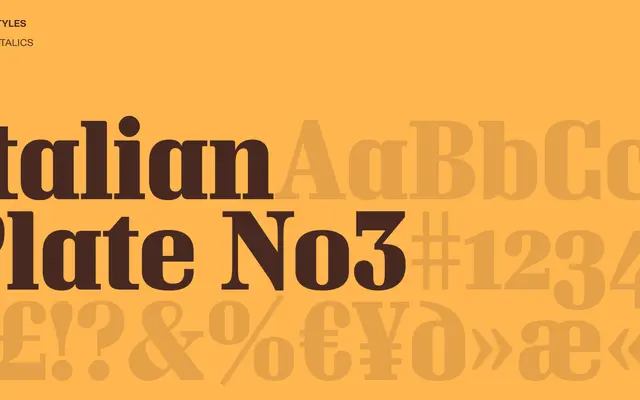
Italian Plate No. 3
A European plate-engraving grotesque from Playtype with a quiet, legible character suited to editorial and identity work.
Rooted in the tradition of plate-engraving lettering, Italian Plate No. 3 carries the restrained stroke contrast and calm structure common to that lineage. The name nods to an archival, continental sensibility, placing it closer to the quiet end of the grotesque spectrum. Limited page content makes it difficult to assess the full weight and style range available.
Italian Plate No. 3 follows the tradition of European plate-engraving grotesques, characterised by restrained stroke contrast and a legible, neutral structure typical of this subcategory.